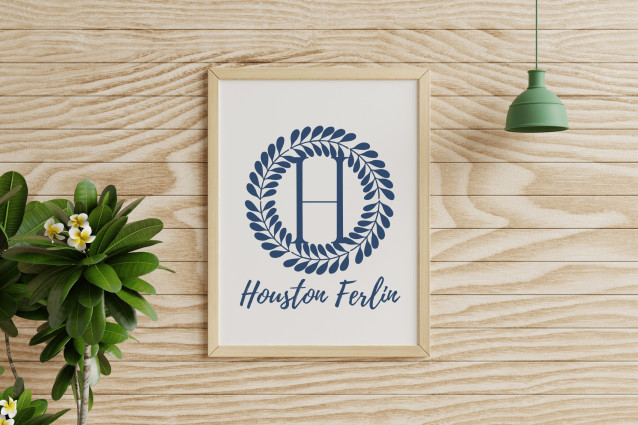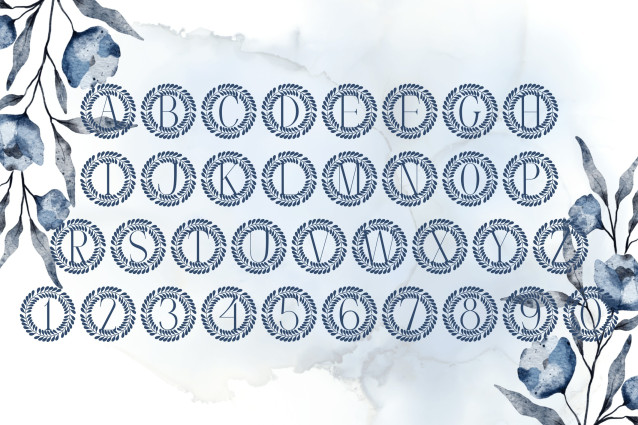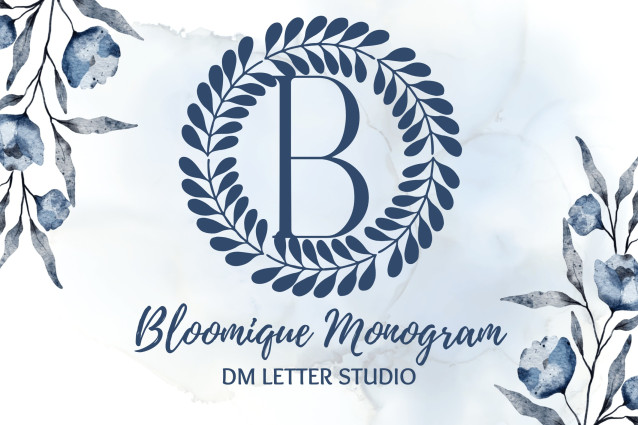
Bloomique Font
Bloomique Monogram Font is a refined serif monogram font that combines timeless lettering with graceful floral embellishments. Each uppercase letter is paired with delicate bloom details, making this font ideal for wedding stationery, feminine branding, Cricut projects, and luxurious product packaging.